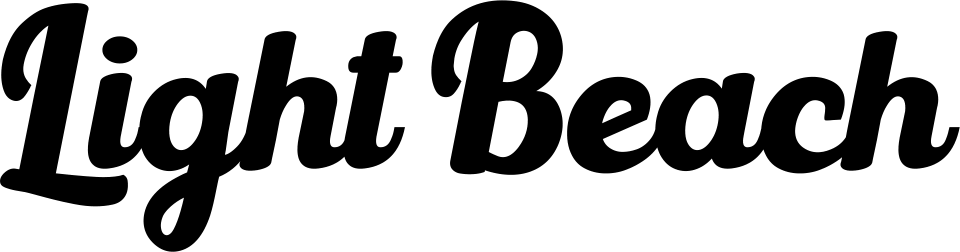
Light Beach Font
Light Beach is a beach font in which the edges of its characters are elongated. This font conveys a sense of playfulness, calmness, joy, and softness to the audience, so it can engage them with your content in the shortest time. Professional graphic designers include this font to design digital banners, website templates, and calendars.